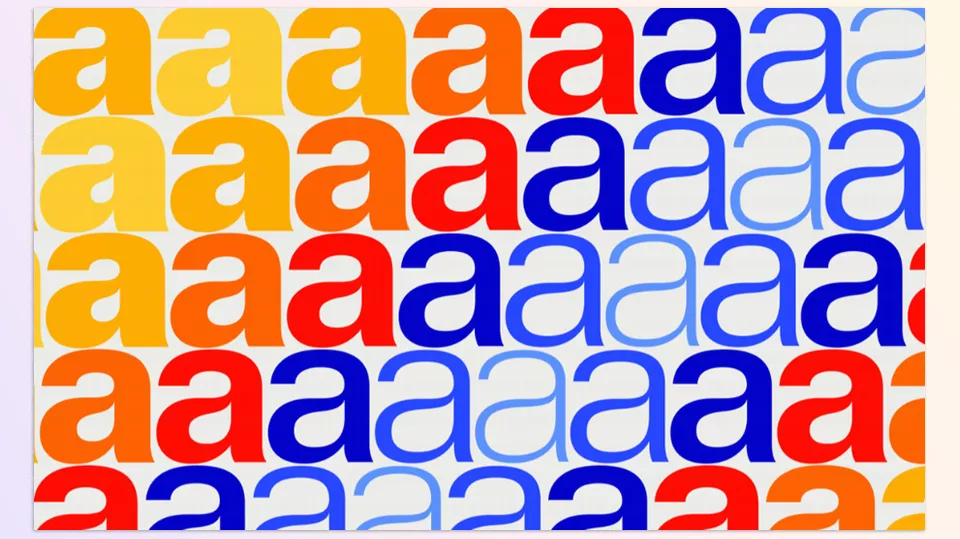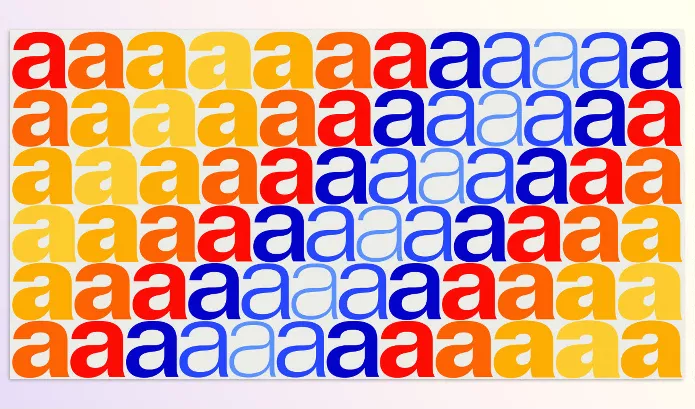
Exat Font Family is created to be flexible to the needs of the audience, enabling them to use the type in a multitude of ways, ranging from foreground headlines to detailed paragraphs. This family of type fonts exemplifies the Croatian artistic and architectural spirit that sought new notions and ideas of design in the form of abstraction.
Image 1: A seamless blend of form and function, inspired by pioneering architectural movements.